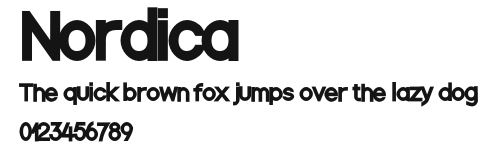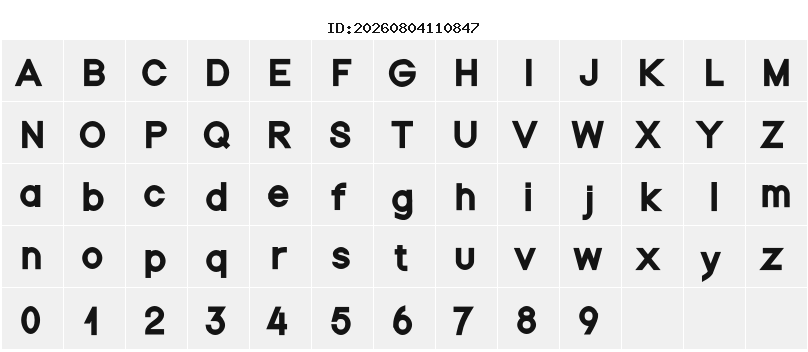
• Font Name: Nordica
• Font Style: Black
• Full Font Name: NordicaBlack
About Nordica.otf
Nordica.otf is a modern, elegant sans-serif font designed for ultimate readability and visual harmony. Perfect for branding, headlines, web design, and print materials.